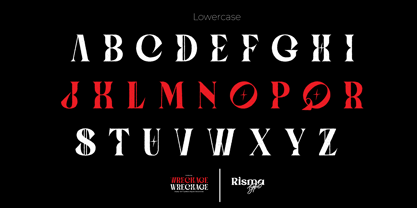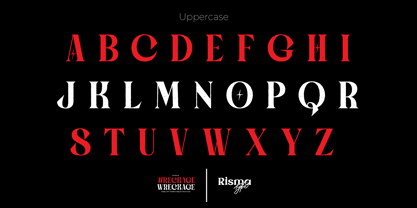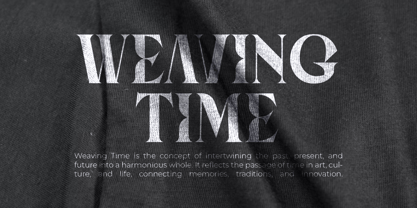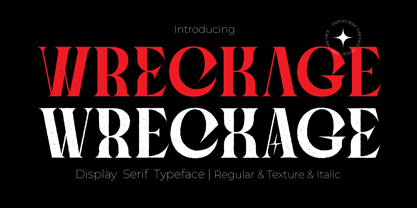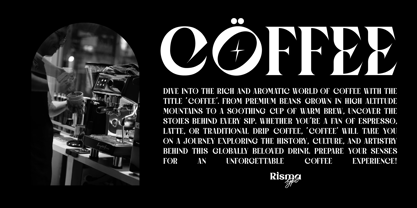
Wreckage
by Risma Type
The Wreckage Font Family was designed by Risma Mulyasari and published by Risma Type. Wreckage contains 4 styles and family package options. More about this family
"Bold and expressive, Wreckage is a display font designed to make a striking visual statement. With its imperfect strokes, unique textures, and deconstructed style, this font is perfect for creative projects that demand an edgy and modern touch. Ideal for posters, album covers, branding, or designs that aim to showcase an urban and industrial vibe, Wreckage embodies a 'broken yet beautiful' aesthetic, making it the perfect choice for designs that leave a lasting impression."
Key Features:
• Unique and eye-catching display style
• Available in various styles
• Perfect for graphic design, branding, and digital media
• Multi-language support
• Designed for creative projects that need a modern and edgy twist
"Bring your designs to life with Wreckage – a font that breaks the ordinary and finds beauty in chaos!"